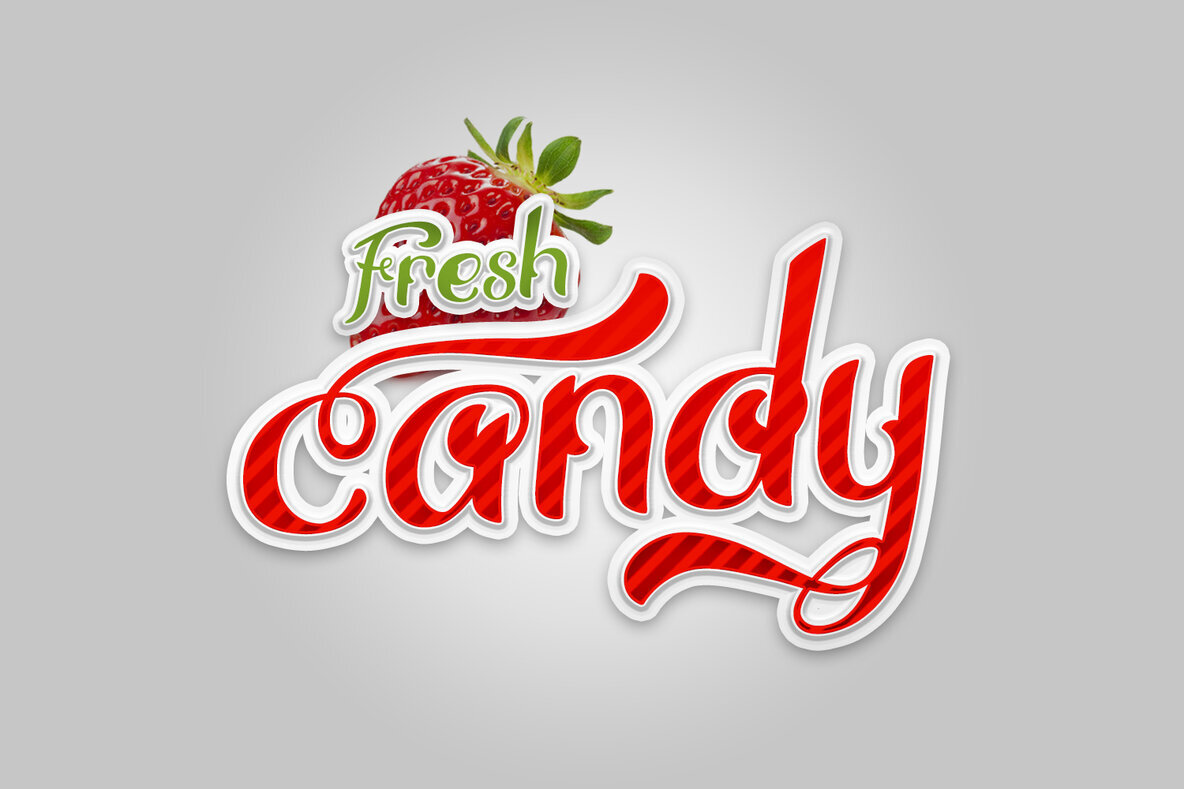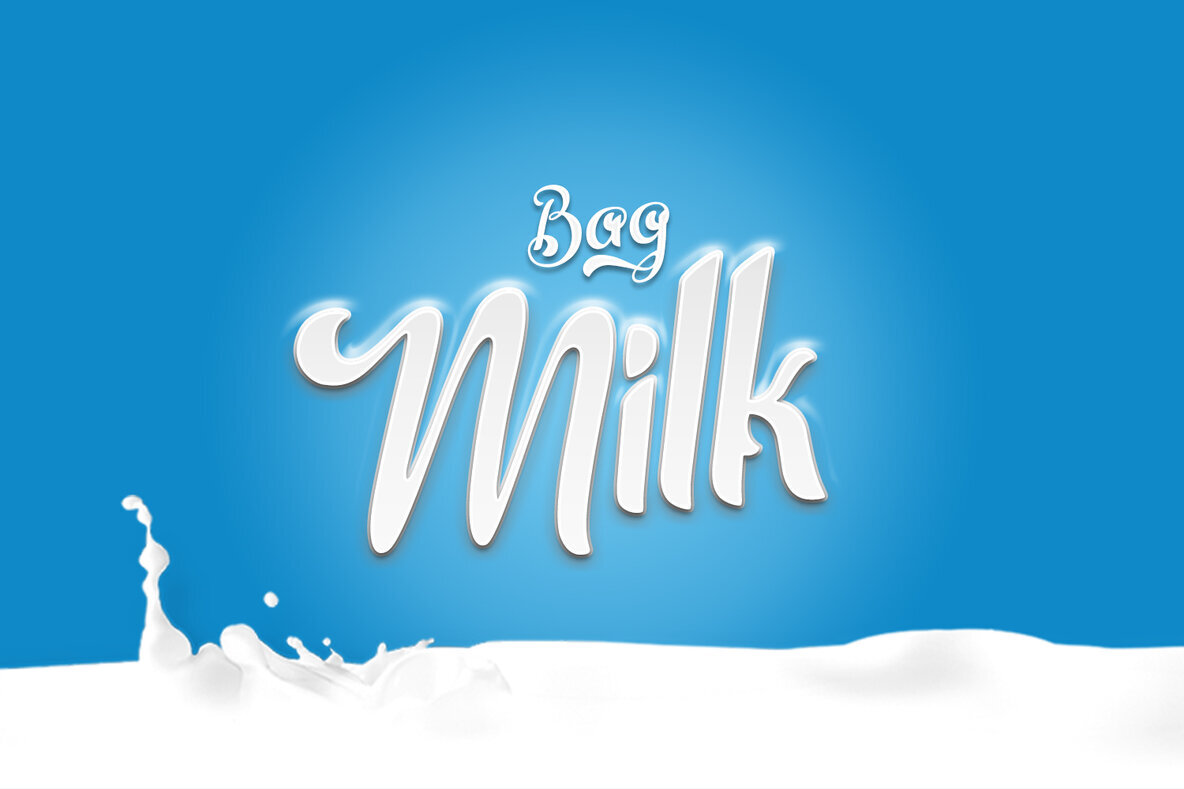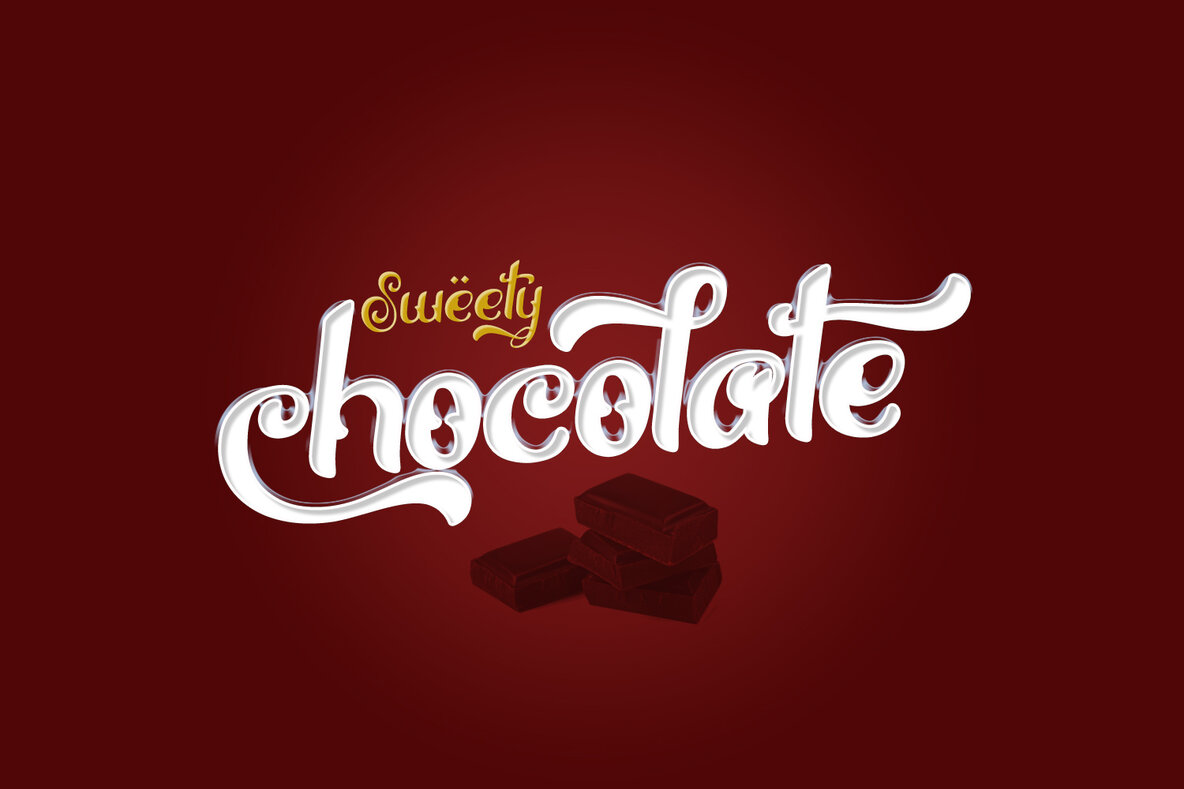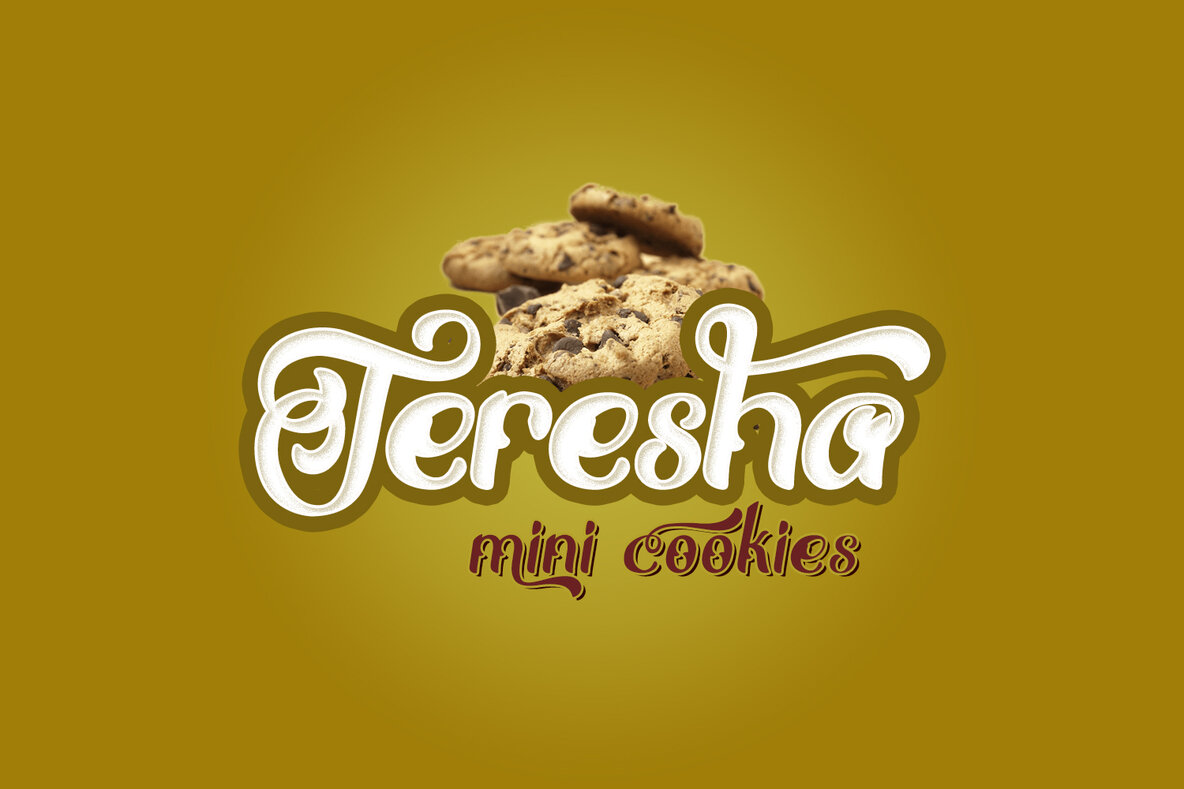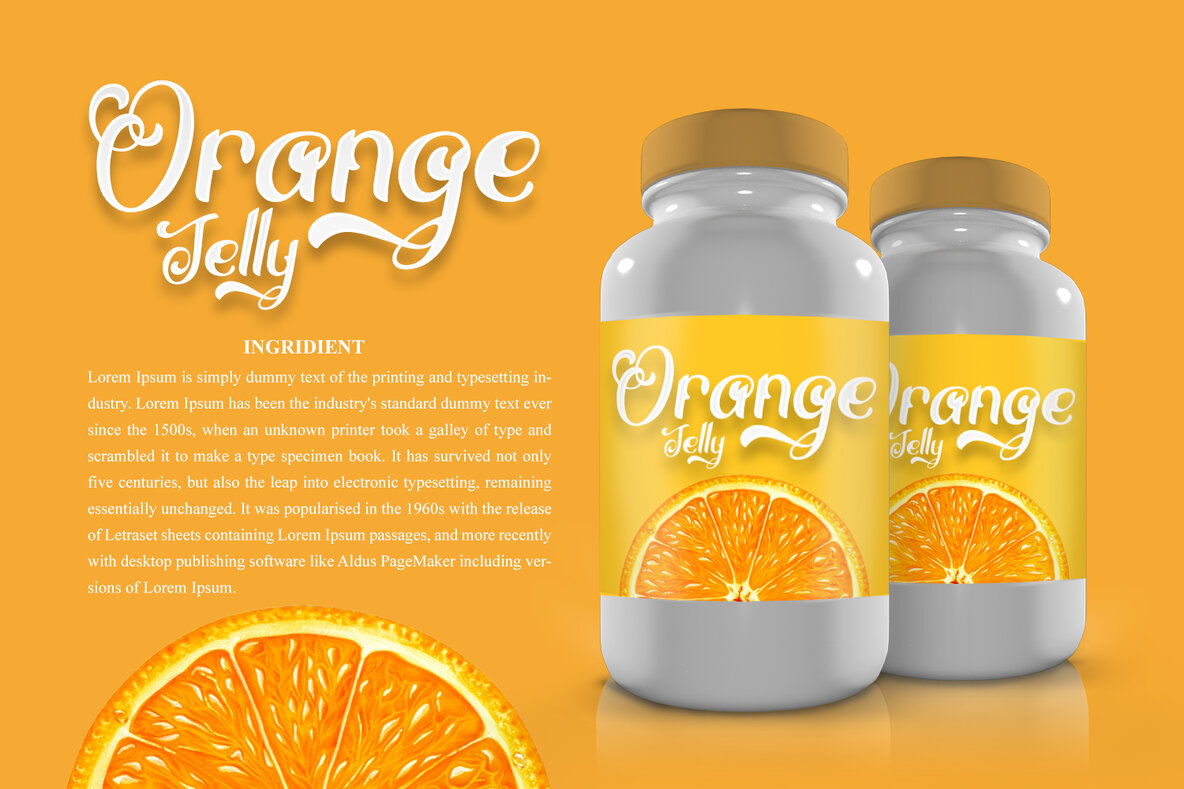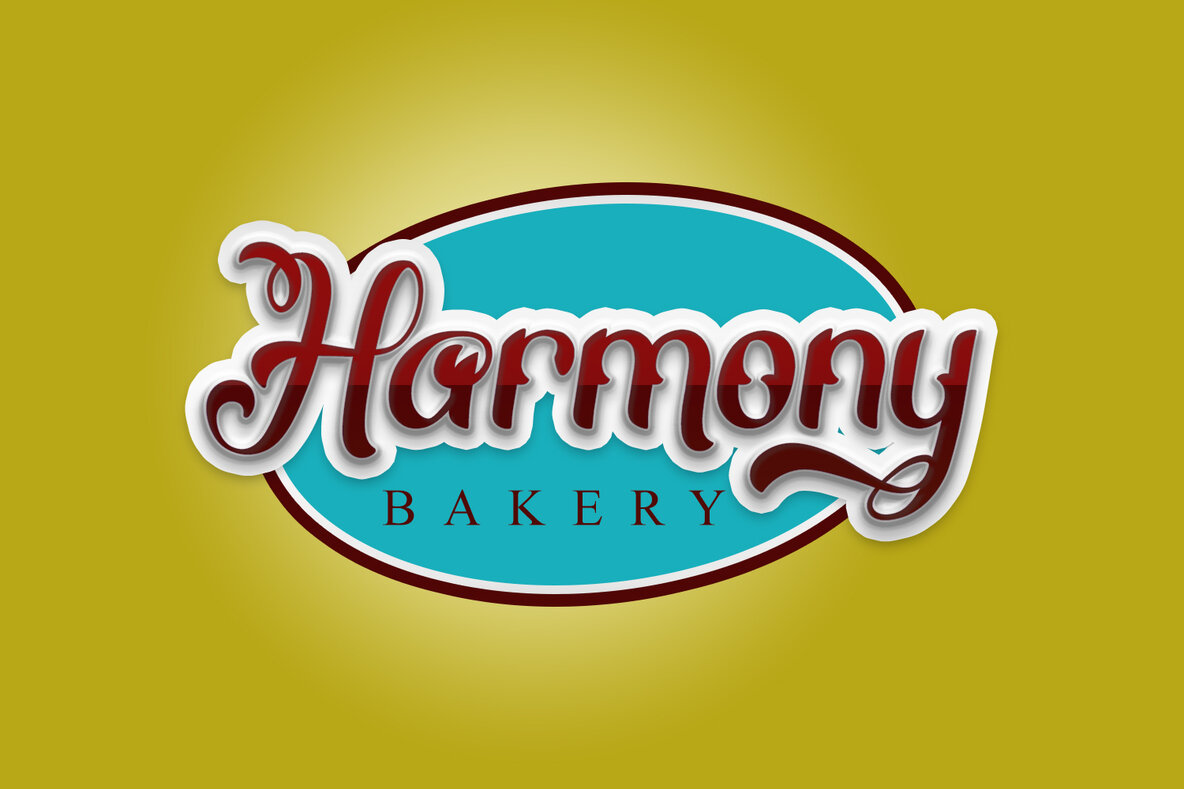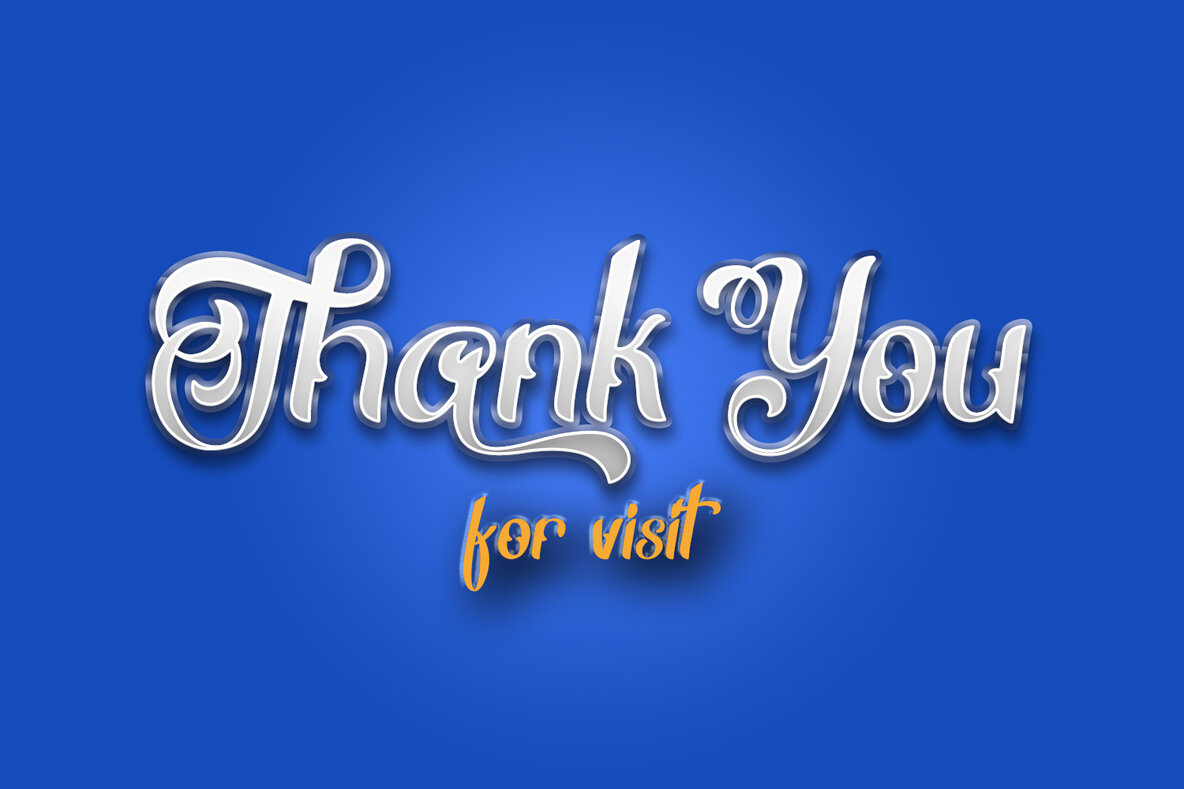
Thrones Font
Thrones emanates a sense of sophistication and classic appeal, designed to meet the diverse needs of your projects. Its boldness allows it to stand out in any design context, whether that be branding, editorial work, or digital compositions. This typeface's elegance seamlessly complements every design, providing a robust visual impact.Thrones: Bold Classic Typeface